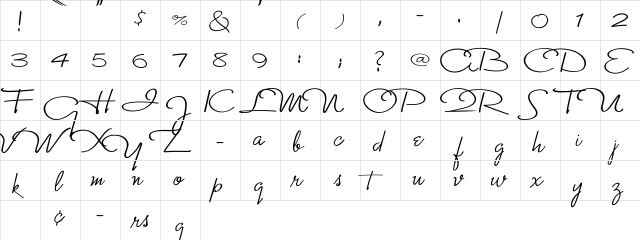
Monika 'Upright' Regular
Design Context for Monika 'Upright' Typeface
Monika 'Upright' takes a measured approach to typography — its balanced proportions and neutral character make it a reliable workhorse for both digital and print work.